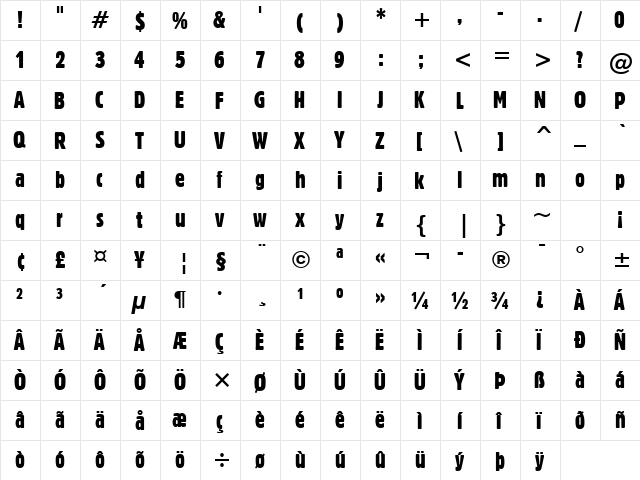
Gothic821 Cn BT Regular
Design Context for Gothic821 Cn BT Typeface
Gothic821 Cn BT has the quiet confidence of well-executed sans-serif typography: versatile, unobtrusive, and dependable at any size.
Font Pairing: Works well alongside a characterful serif or display font that can carry the expressive load while Gothic821 Cn BT handles the functional copy.
Pro Tip: Use Gothic821 Cn BT for UI labels, navigation, and short-form body copy where clean legibility is the priority.